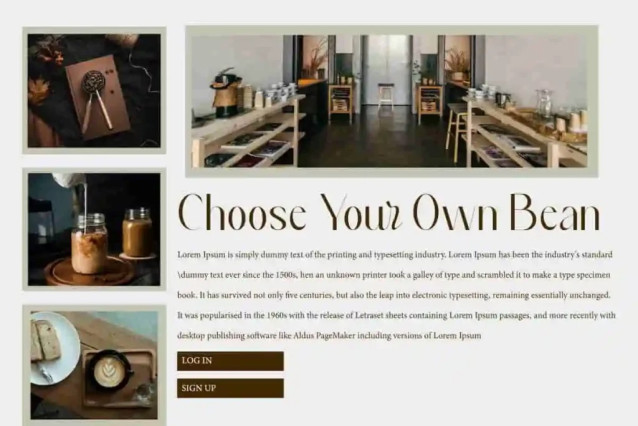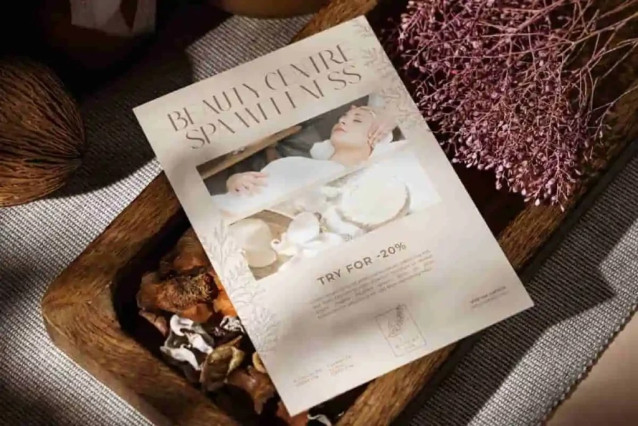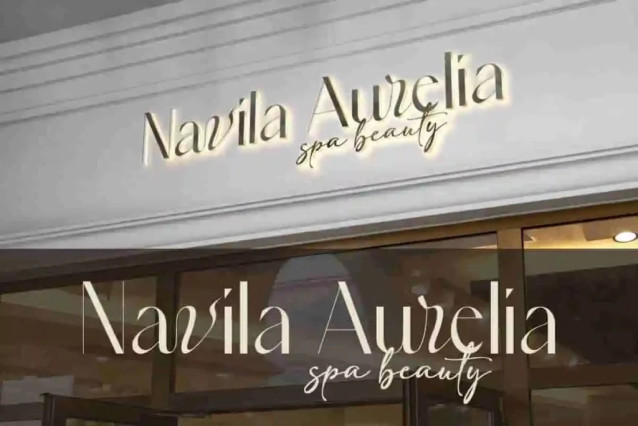
Arieva Nadire Font
Arieva Nadire Font is a clean and minimalist sans serif display with elegant ligature curves. This font is specifically made for modern and classy modern themed projects. Perfect for beauty clinic, cafes, fashion, graphic design, handicraft, home furniture, restaurant, spa salon, and many more.
Arieva Nadire Font includes full set of Uppercase and Lowercase Basic Characters, Numbers, Punctuation, Symbols and Ligature. The sleek and stylish visual aesthetic will bring elegant and refined typography to life. Perfect for banners, blogs, brand logo, brochure, covers, flyer, greeting card, headers, invitation, labels, mockup, packaging, quotes, signage, stationery, stickers, template, title, watermark, website, etc.